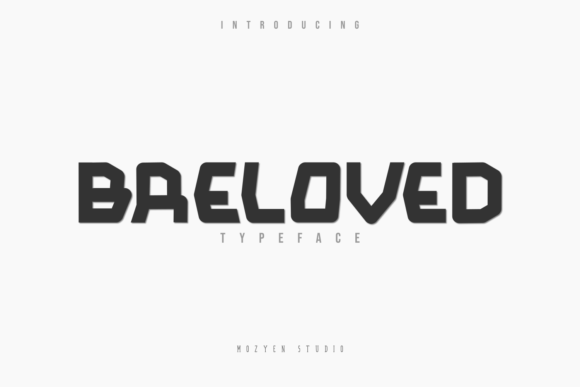
Behold the radiant Breloved font, a display font that dances with bold strokes and quirky charm. Its chunky letters burst with character, ready to transform your creative visions into captivating masterpieces. Unleash your imagination and let Breloved take center stage, adding an irresistible spark to your designs.
With its playful and eye-catching personality, Breloved is the perfect font for T-shirt quotes. Imagine your words dancing across the fabric, each letter a vibrant expression of your unique style. Let Breloved carry your message with confidence, making it impossible for anyone to resist its magnetic pull.
Whether you're a seasoned designer or just starting your creative journey, Breloved is your perfect companion. Its versatility knows no bounds, adapting effortlessly to a myriad of projects. From eye-catching posters that demand attention to stunning social media graphics that ignite engagement, Breloved has the power to elevate your designs to new heights.
Embrace the magic of Breloved and let your creativity soar. Its bold, chunky letters will add a touch of whimsy to your projects, leaving a lasting impression on all who encounter them. Join the ranks of creative visionaries who have discovered the transformative power of Breloved. Experience the joy of creating designs that resonate with your audience, leaving them captivated and inspired.